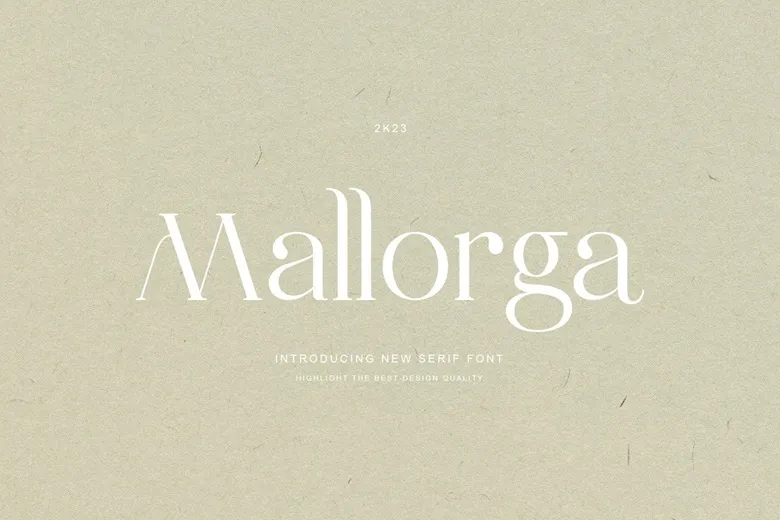
Mallorga is a new serif font. It mainly has a modern look by incorporating design changes. Mallorga is designed to help you achieve your best results. You can apply this font on wedding invitation, logos, posters, website, covers, textiles, billboards and many other.